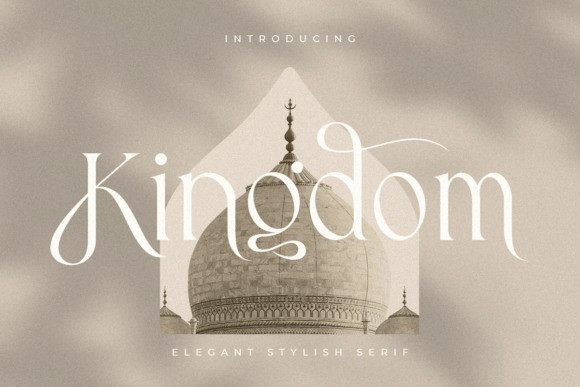
Kingdom Serif Font
Designer: Zamroni Hamzah
Kingdom Serif Font is an elegant serif font, that features a very delicate and classy look. Not too thin and not too thick, balanced and varied, Kingdom was designed to enhance the beauty of your projects